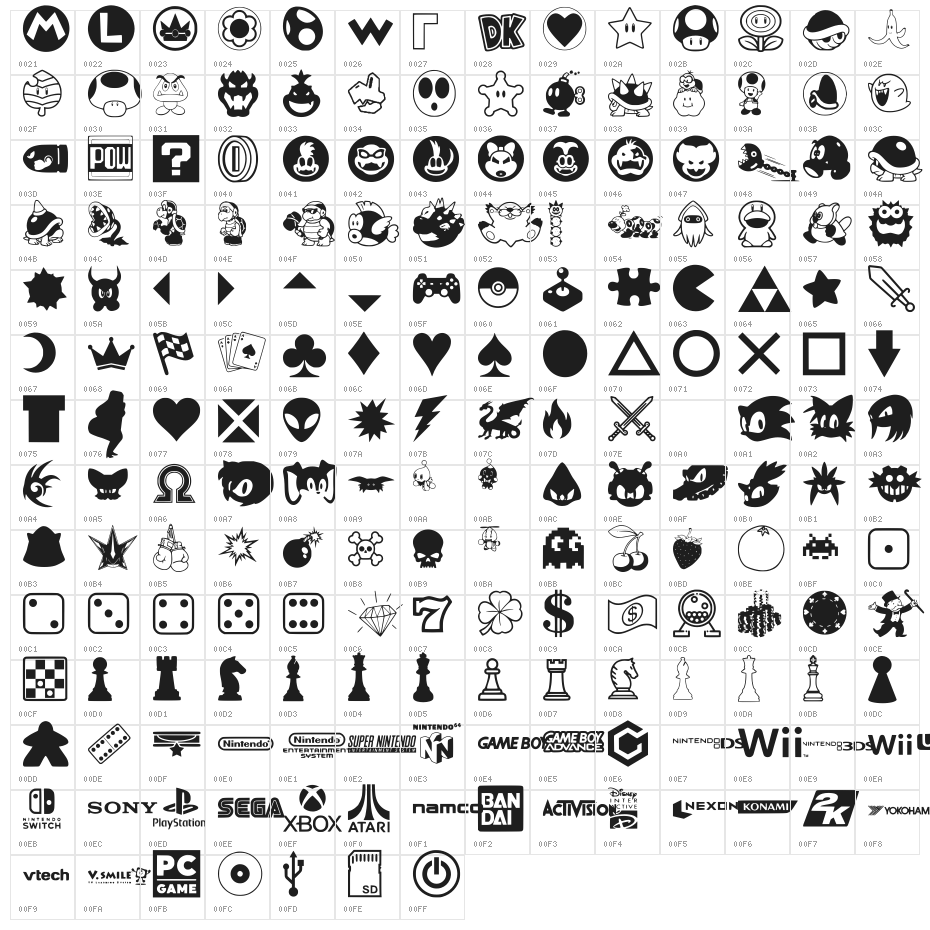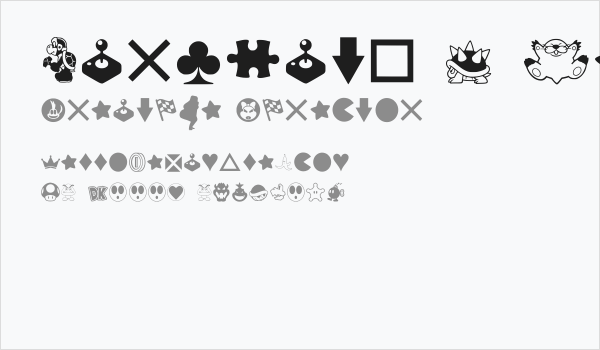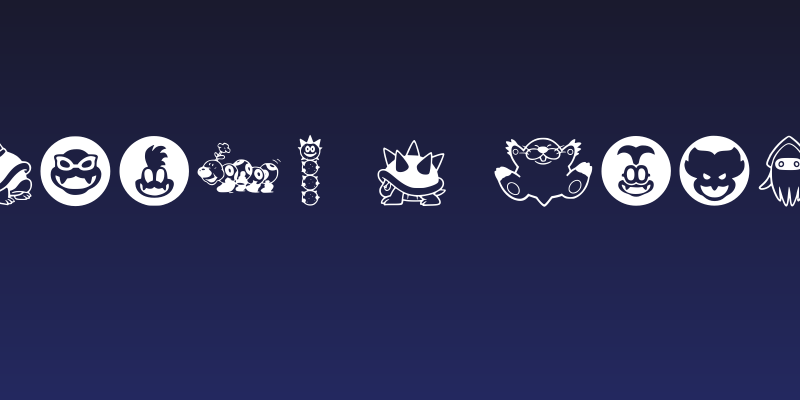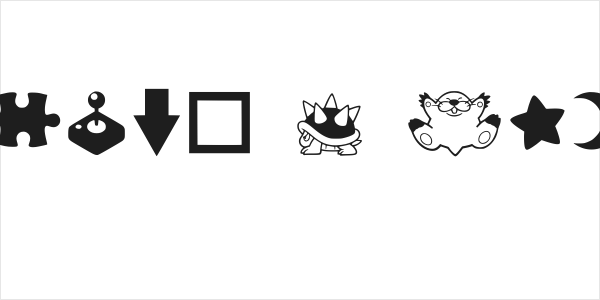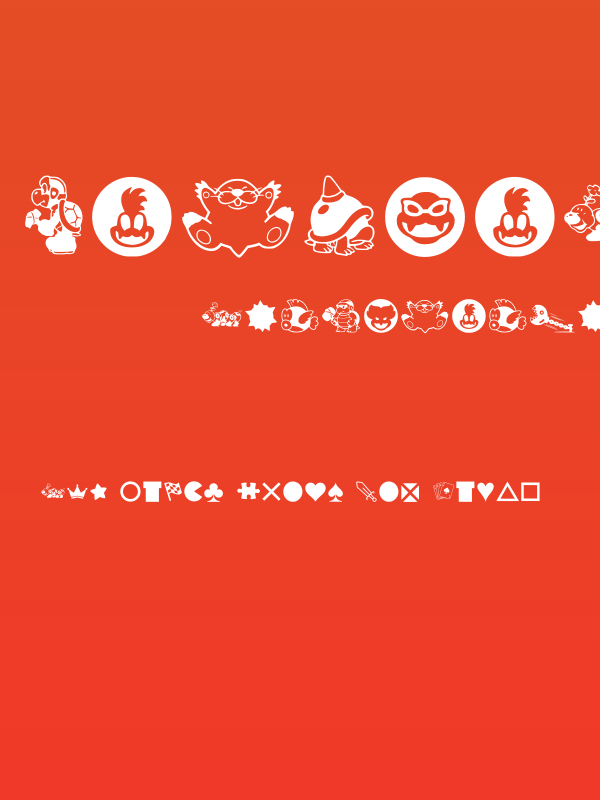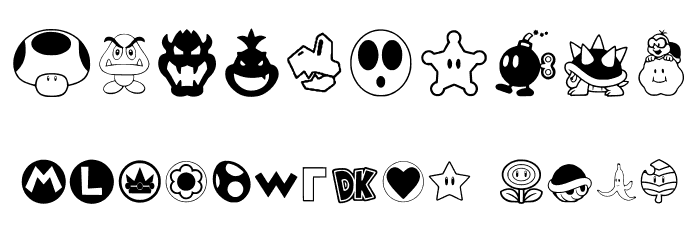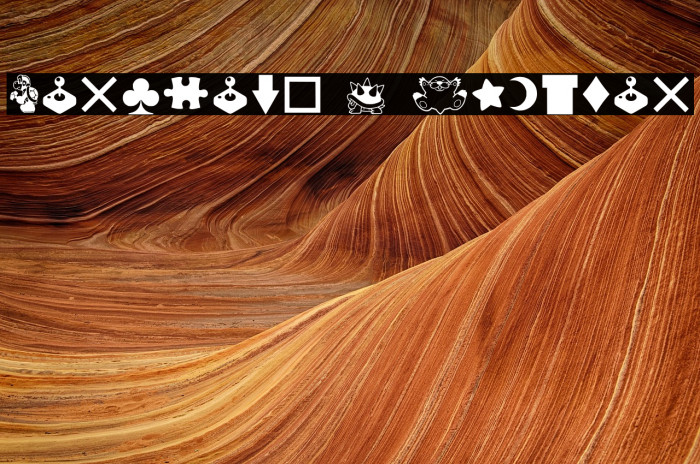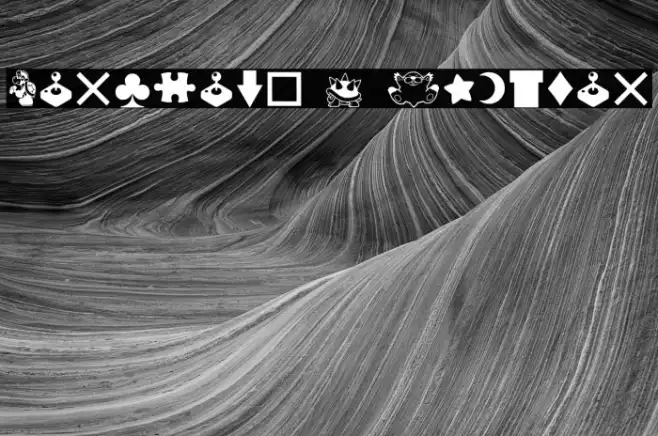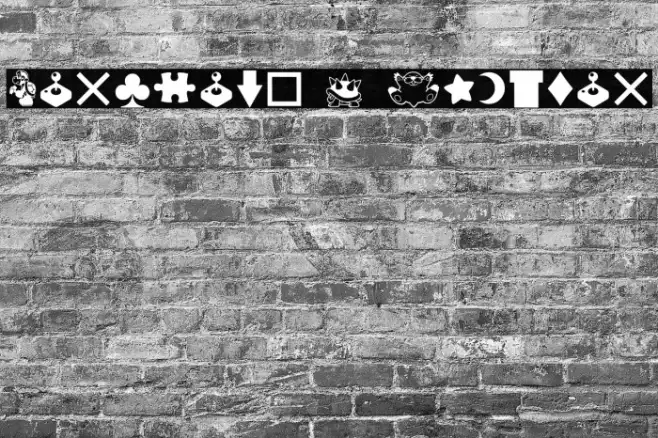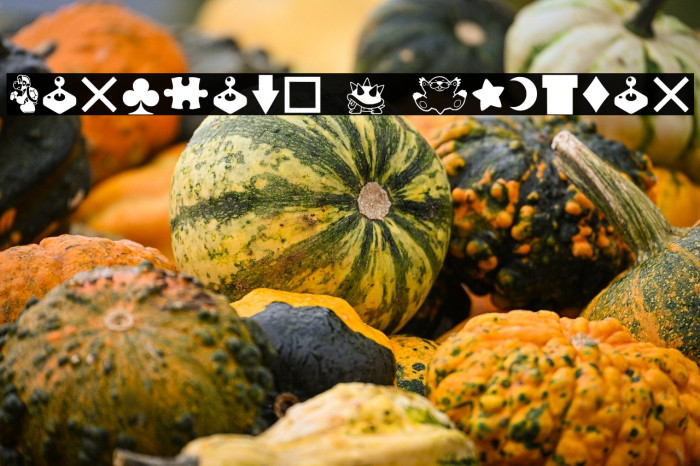
Markbats 8 Regular Font
Markbats 8 Regular Description
This is a decorative font featuring a collection of iconic symbols and characters inspired by classic video games. Each glyph is a detailed illustration, capturing the essence of beloved characters and symbols. The font is playful and nostalgic, perfect for projects that aim to evoke a sense of fun and adventure. The characters are bold and easily recognizable, making them ideal for creative and thematic designs.
| Use Case | Logos, Posters, Merchandise |
| Proposed Projects | Ideal for video game-themed designs, posters, merchandise, and creative projects that require a playful and nostalgic touch. |